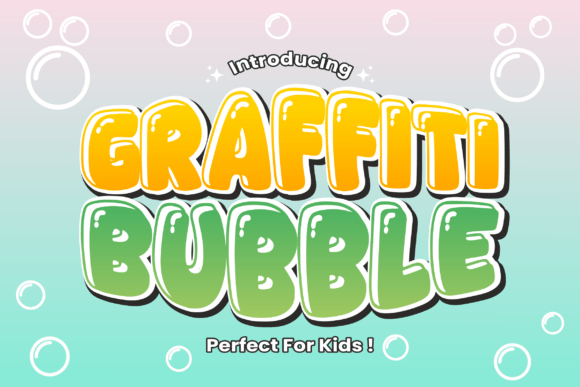
Unleash Your Creativity with the Graffiti Bubble Font
Have you ever been in the middle of a creative project, and suddenly, an idea strikes you like a bolt of lightning? The excitement is palpable, and your imagination runs wild with possibilities. That’s exactly what happened when designers discovered the Graffiti Bubble Font, a delightful fusion of playful aesthetics and contemporary design.
This charming font is perfect for adding a touch of whimsy to your designs, whether it’s a sublimation project on a t-shirt, a mug, or a tote bag. The Graffiti Bubble Font is also a great canvas for animations, comic titles, and other creative endeavors. Its effortless design makes it a valuable tool for designers who want to add a touch of personality to their work without breaking a sweat.
- Unique Characteristics: Features a distinctive graffiti-inspired bubble design, adding a playful and creative touch to any text.
The Graffiti Bubble Font is an interesting and eye-catching choice for designers looking to add a playful touch to their projects. ✨ One of the strengths of this font is its versatility – it can be used for a wide range of applications, from posters and flyers to digital interfaces and social media graphics. ✨ The bubble-like shapes and graffiti-inspired strokes give the font a fun and carefree feel that can be used to convey a sense of youthfulness and creativity.
However, there are some limitations to consider. ⚠️ One of the main issues is that the font may not be suitable for formal or professional projects, as it can come across as childish or unpolished. ⚠️ Additionally, the font’s complexity can make it difficult to use in certain situations, such as in small text sizes or with complex layouts.
- Versatile and playful design
- Works well for a wide range of applications
- Can be used to convey a sense of youthfulness and creativity
- May not be suitable for formal or professional projects
- Can be complex to use in certain situations
Overall, the Graffiti Bubble Font is a fun and creative choice that can add a unique touch to a project. However, it’s essential to consider the context and potential limitations before using this font.
Use the Graffiti Bubble Font to create eye-catching and playful designs, such as:
- Social media graphics
- Event flyers
- Party invitations
- Street art-inspired designs
The Graffiti Bubble Font is ideal for designs that require a fun, casual, and playful tone, such as:
- Children’s party invitations
- Music festival posters
- Streetwear brand
The Graffiti Bubble Font is a playful, handwritten font often used for titles and headings. However, it may not be the best fit for every project. Here are a few alternatives to consider:
Cream Soda is a bubble font that is more versatile than Graffiti Bubble Font. It has a wider range of uses, from titles and headings to body text. Its design is more elegant and less childish, making it suitable for a wider range of projects.
Comparison: Cream Soda has a more refined and sophisticated look compared to Graffiti Bubble Font, which is more playful and casual.
Great Vibes is a handwritten font that is similar to Graffiti Bubble Font in terms of its playful and casual feel. However, it has a more organic and natural look, making it suitable for projects that require a more authentic feel.